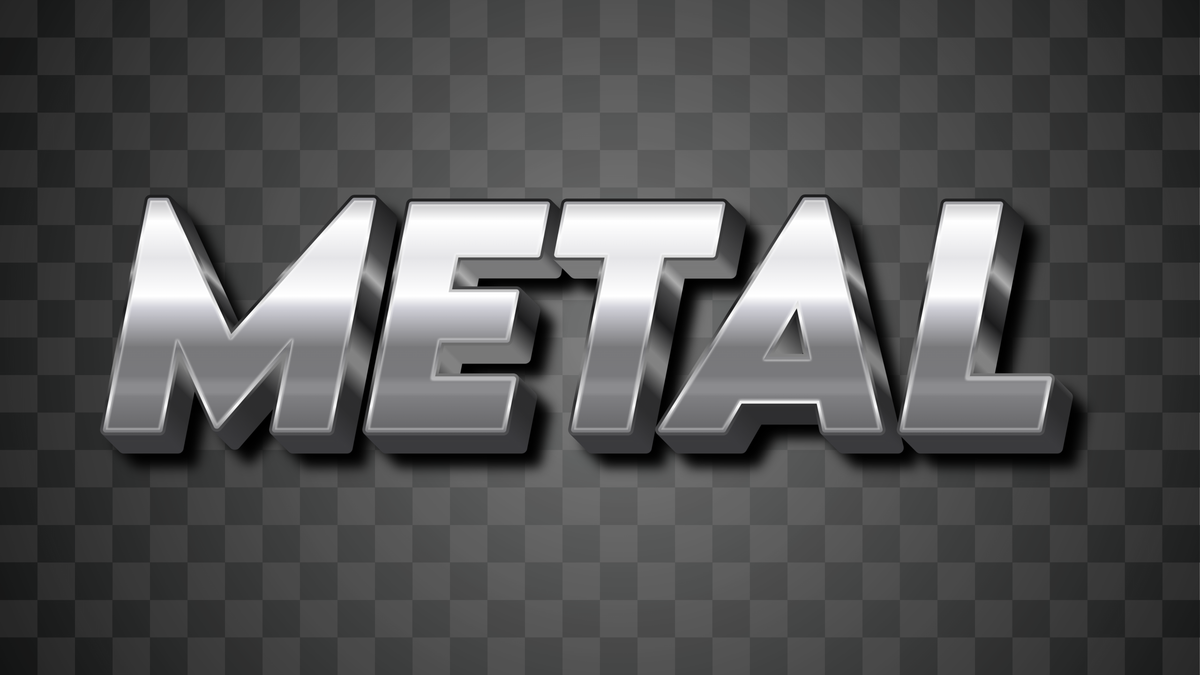
Explore Metal Fonts and Chrome Text Effects for Bold Typography
Metal fonts bring strength, luxury, and a futuristic edge to your designs. From chrome logos to gold lettering, these styles catch the eye and add gravitas. Let’s dive into what makes a great metal font and how you can create stunning chrome text effects with ease.
Chrome and Liquid Metal Styles
The shiny styles in your sample images fall under chrome text font or liquid metal effect. These effects use bright reflections, high contrast, and smooth gradients to simulate liquid metal surfaces. They work beautifully for futuristic branding, gaming titles, or luxury logos.
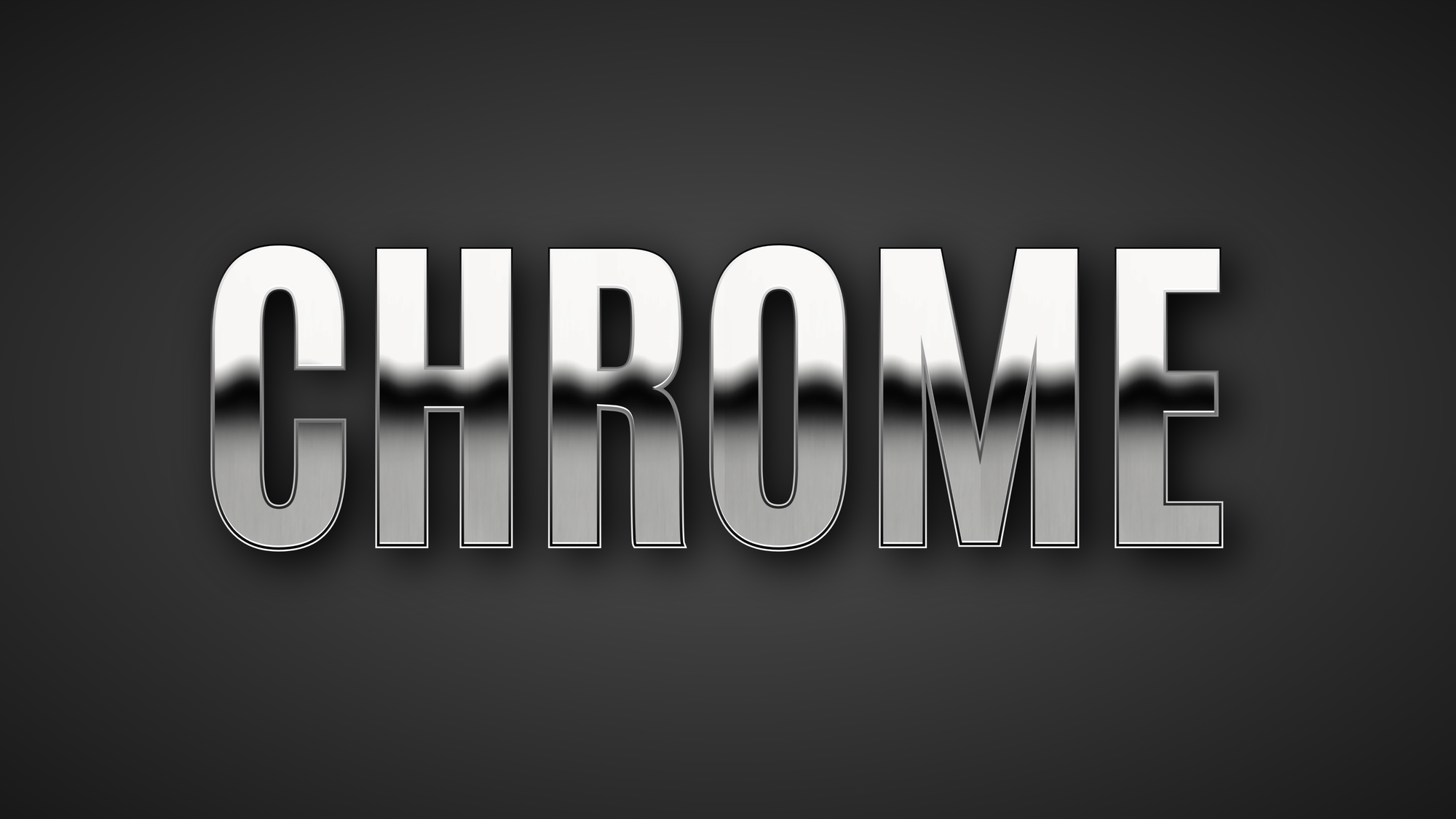
Gold, Bronze and Luxury Metal Fonts
Gold and bronze styles—like the “Luxury” examples in your image—use warm gradients, soft shadows, and metallic highlights to evoke richness. A luxury metal font instantly elevates a logo or product title. Pair it with dark backgrounds such as navy or charcoal to create maximum contrast and depth.
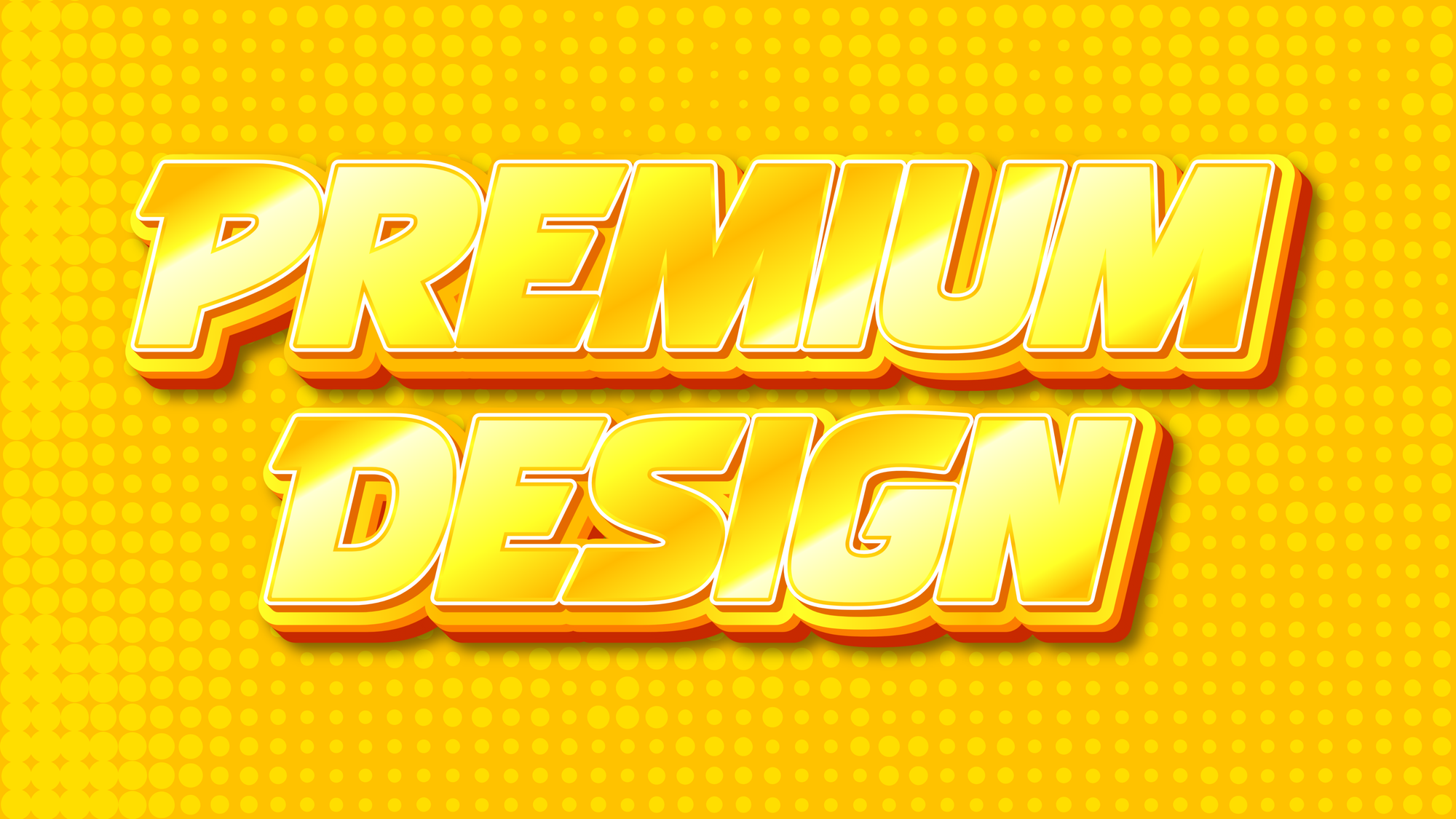
Distressed and Rusted Metal Variations
To add character and texture, try vintage rusted metal effects. These styles feature scratches, patina, and grain that bring a rugged, realistic touch. They are perfect for posters, heavy metal artwork, or designs that need a raw, industrial atmosphere.
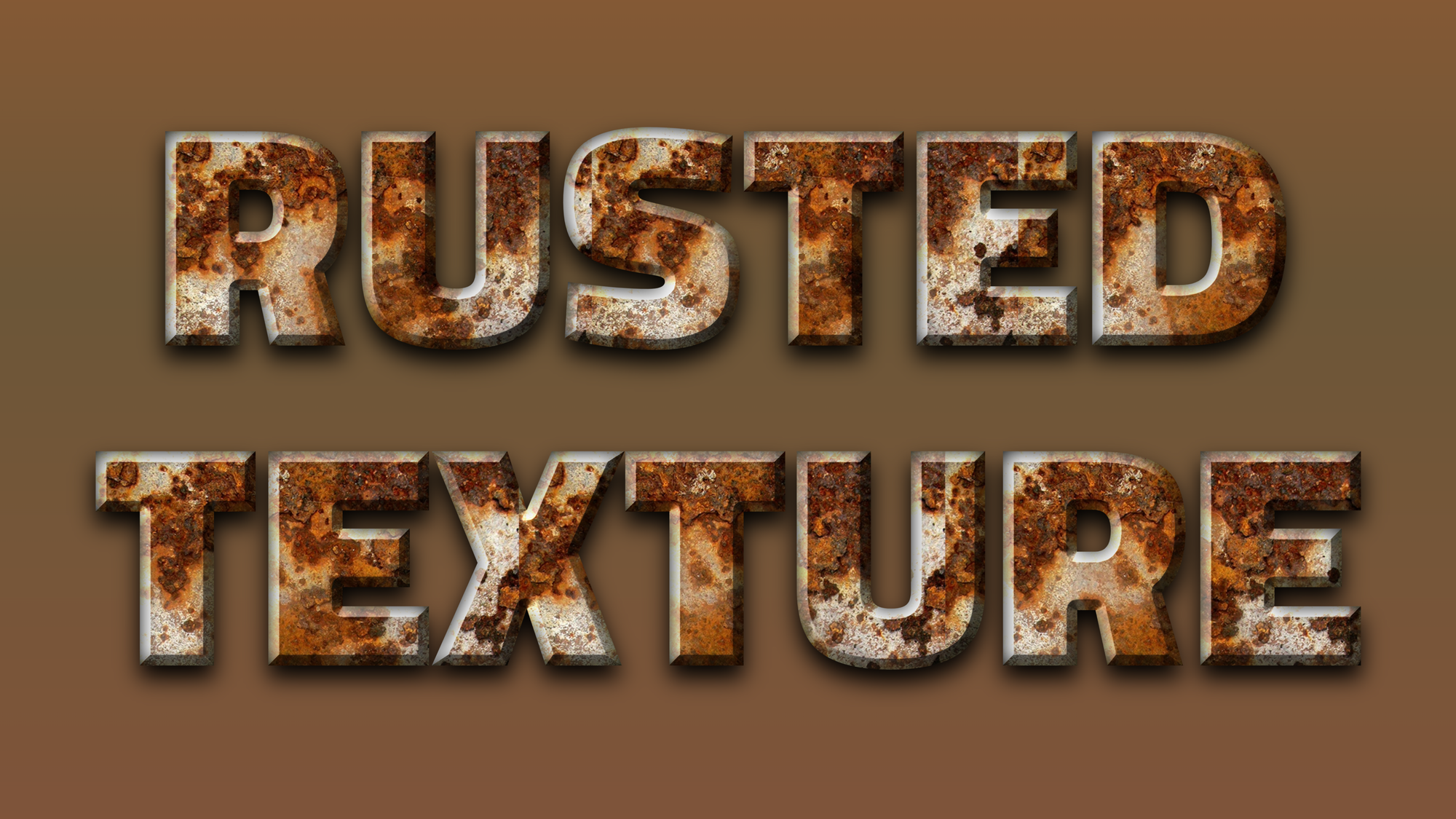
3D Metal Font Depth and Shadows
Many metal fonts gain impact through depth and light. A metal 3D font with bevels or drop shadows makes the text stand out even on complex backgrounds. Combined with realistic reflections, it creates an almost tangible metallic surface that feels solid and professional.
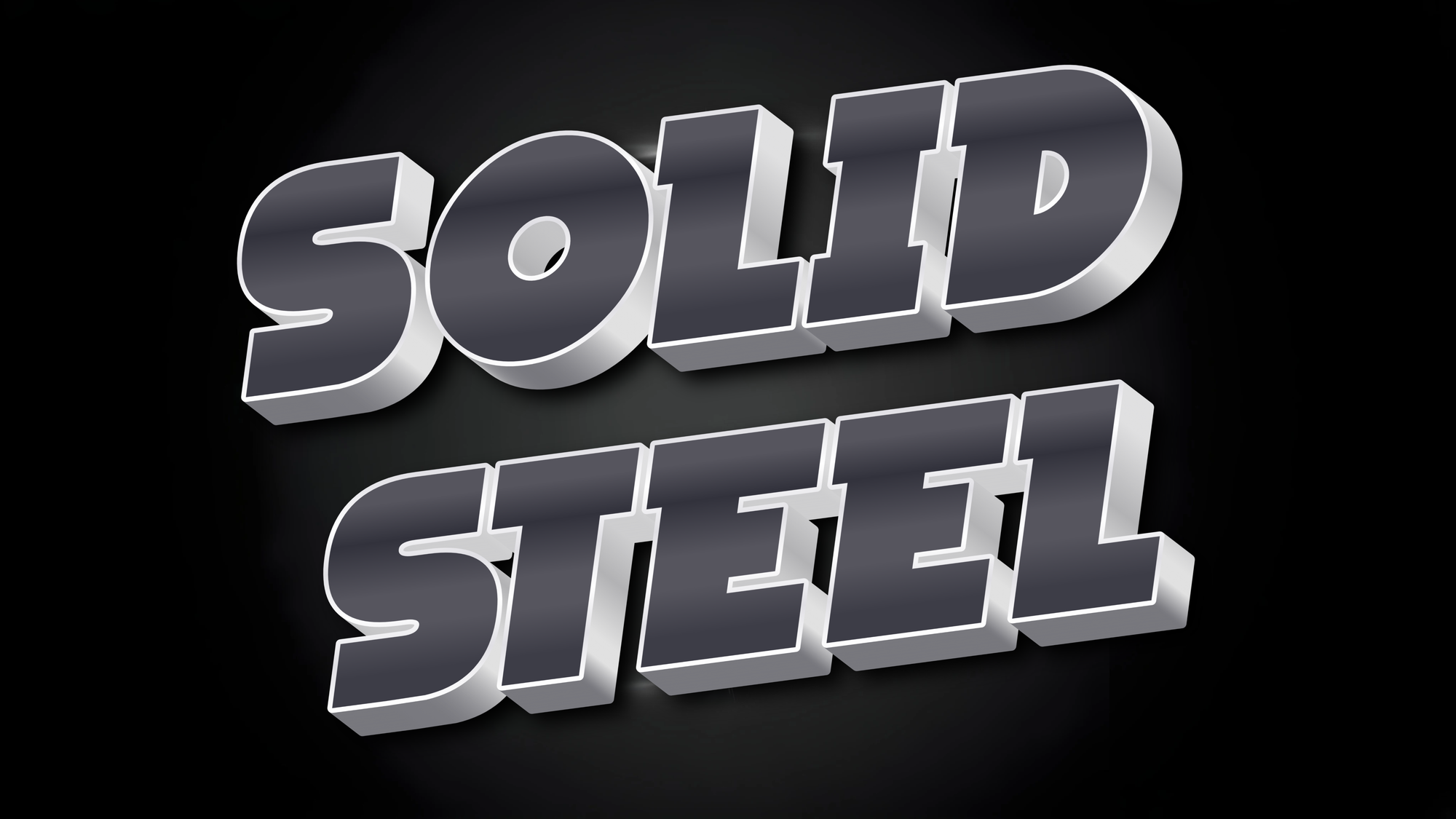
Choosing the Right Metal Font Style
When selecting a metal font, consider:
- Contrast – dark vs. light backgrounds
- Texture – smooth chrome or brushed metal
- Color – silver, gold, bronze, or steel
- Purpose – logo, banner, title, or thumbnail
A good metallic design remains readable while reflecting light in a natural way.
Conclusion
Using metal fonts and chrome text effects can give your design a premium, powerful look. Whether you love shiny chrome, warm gold, or vintage bronze, metallic lettering adds instant impact. Experiment with reflections, light, and texture using the metal text effects collection on TextStudio, and create your own signature metallic style.